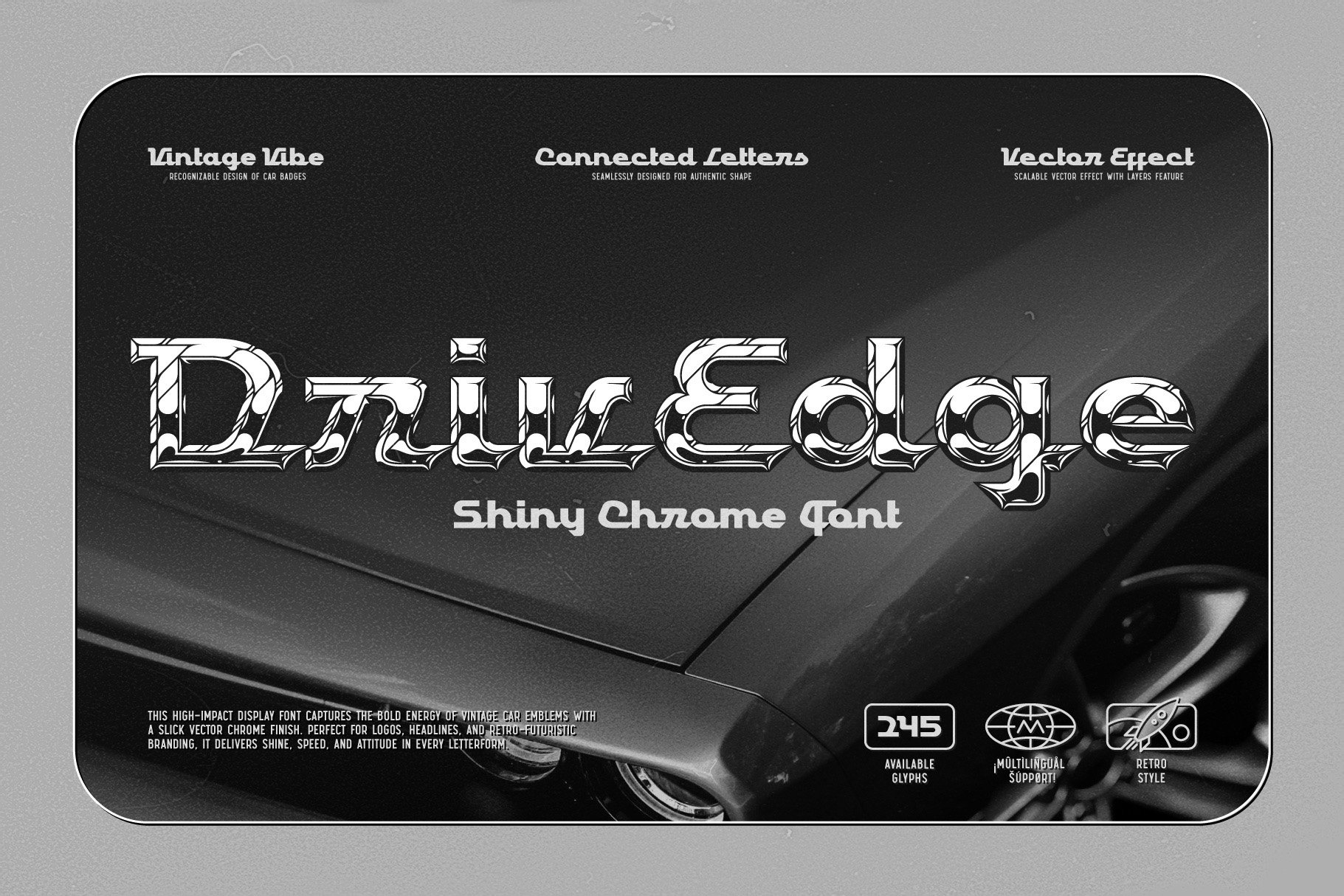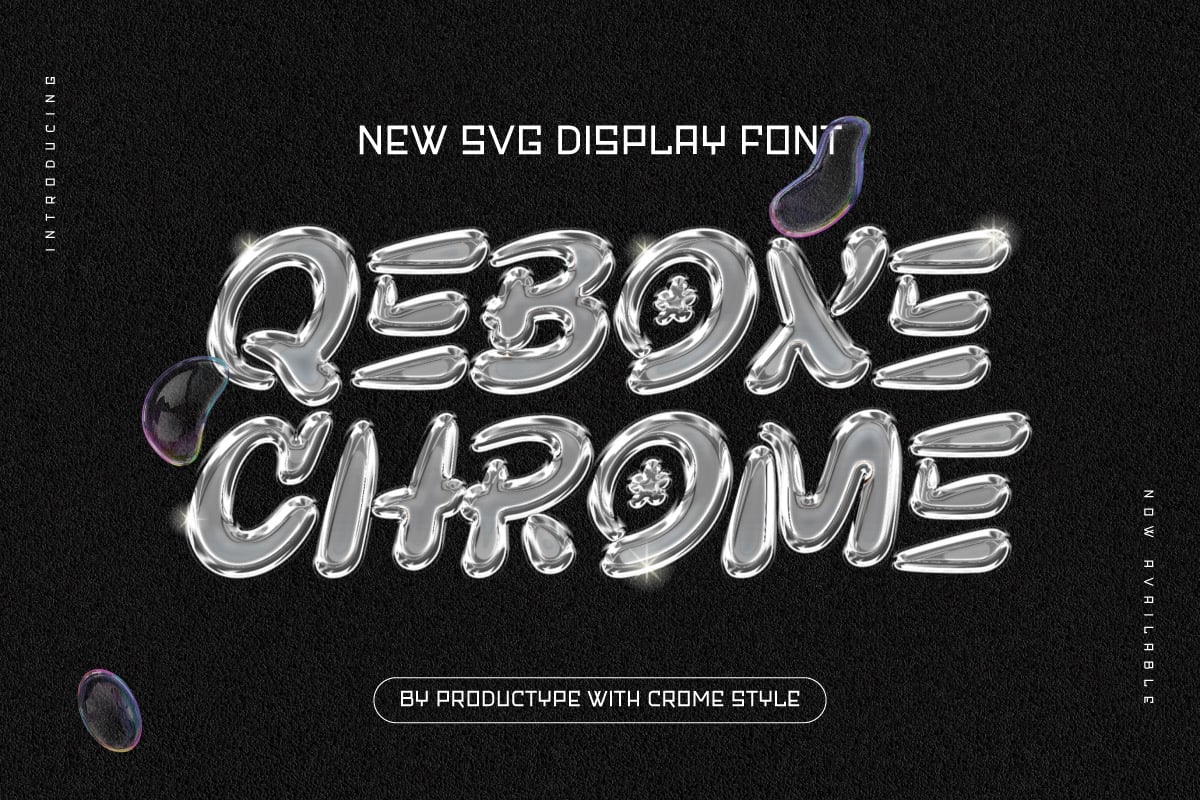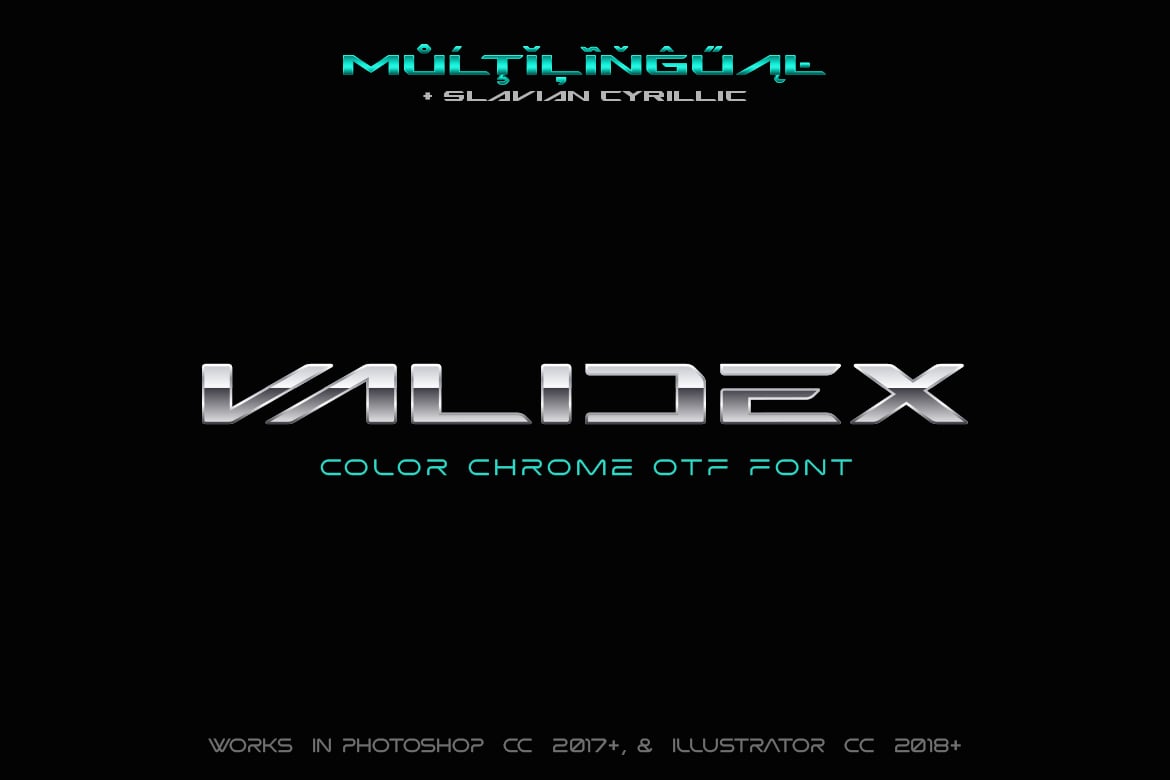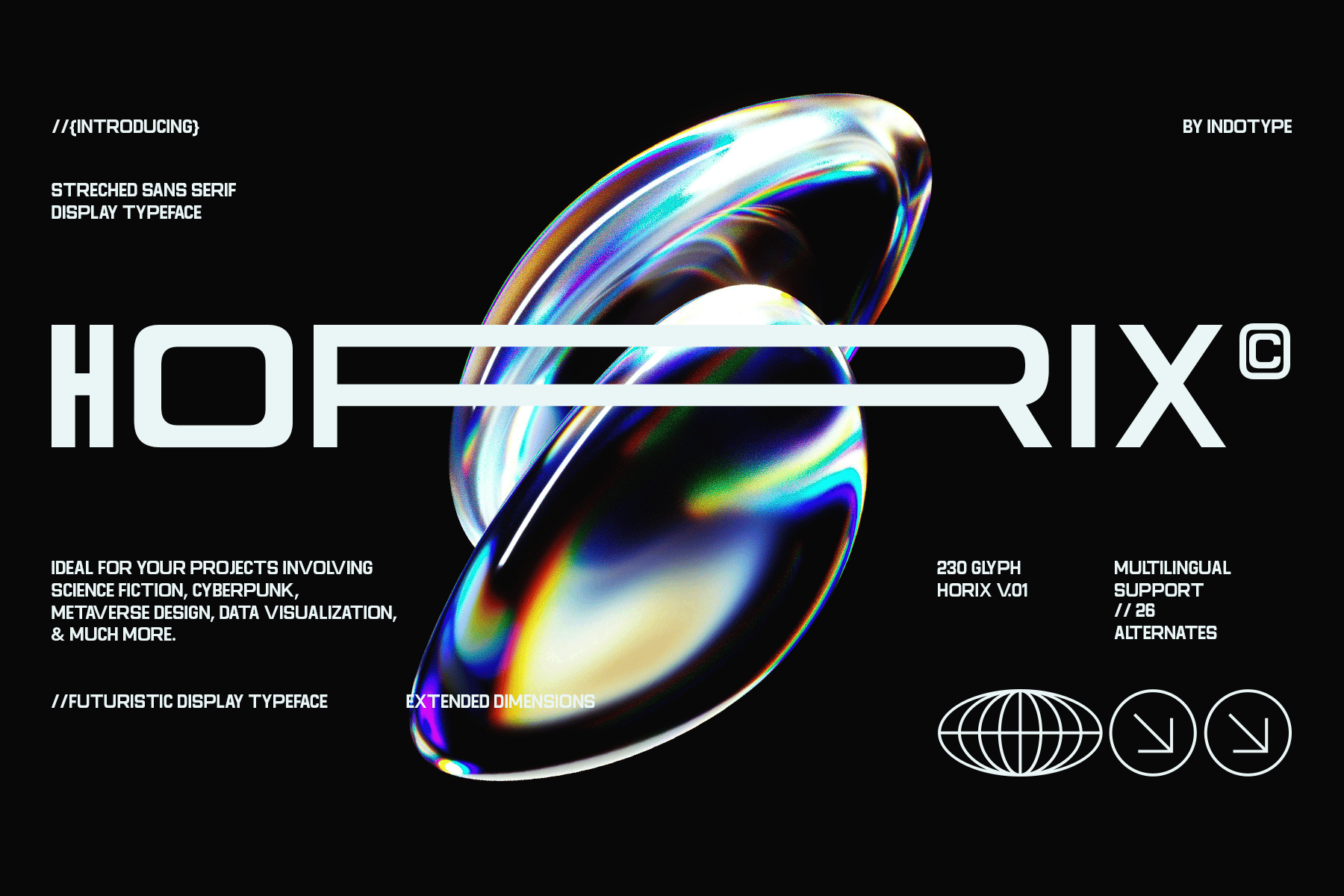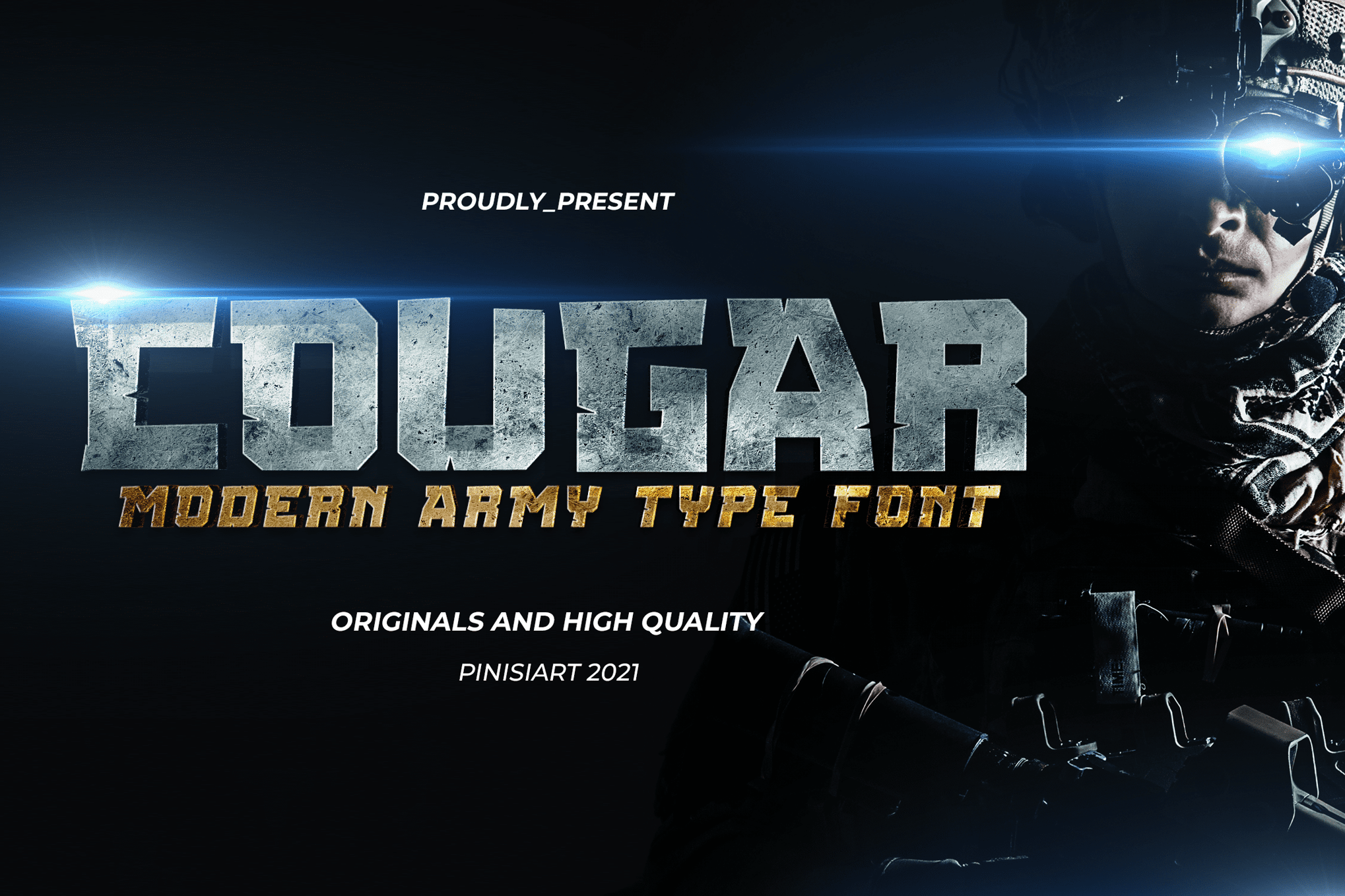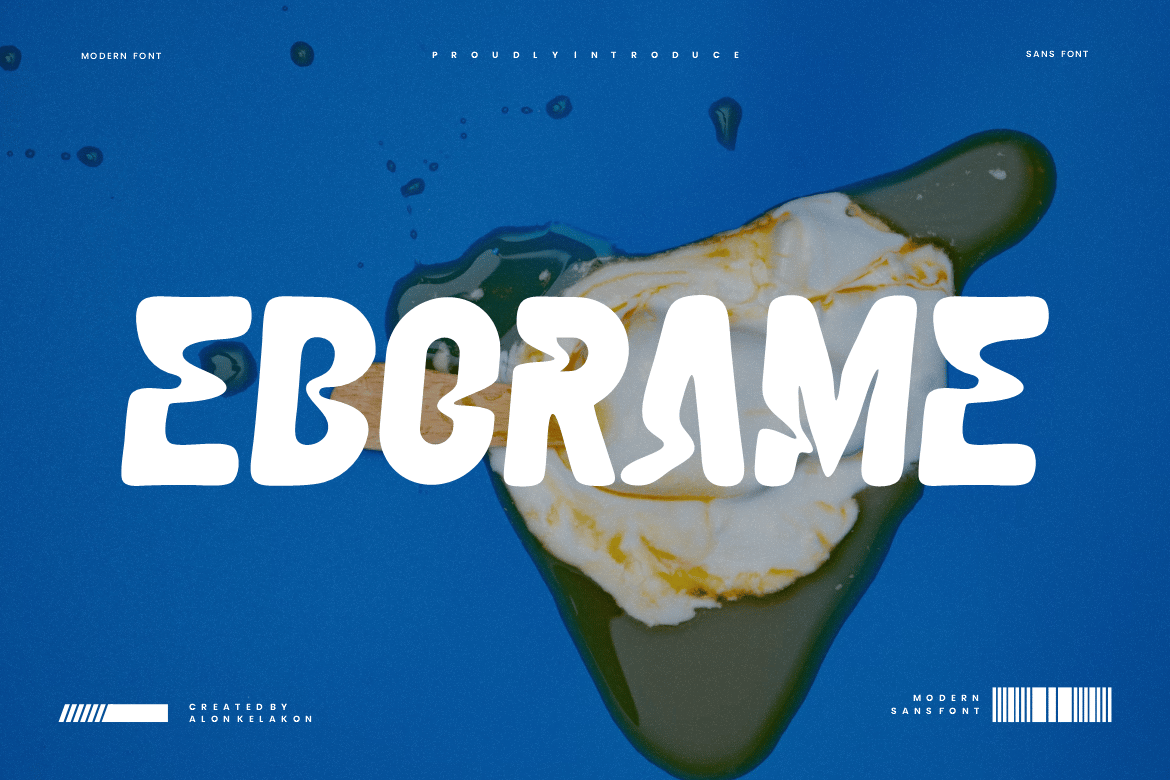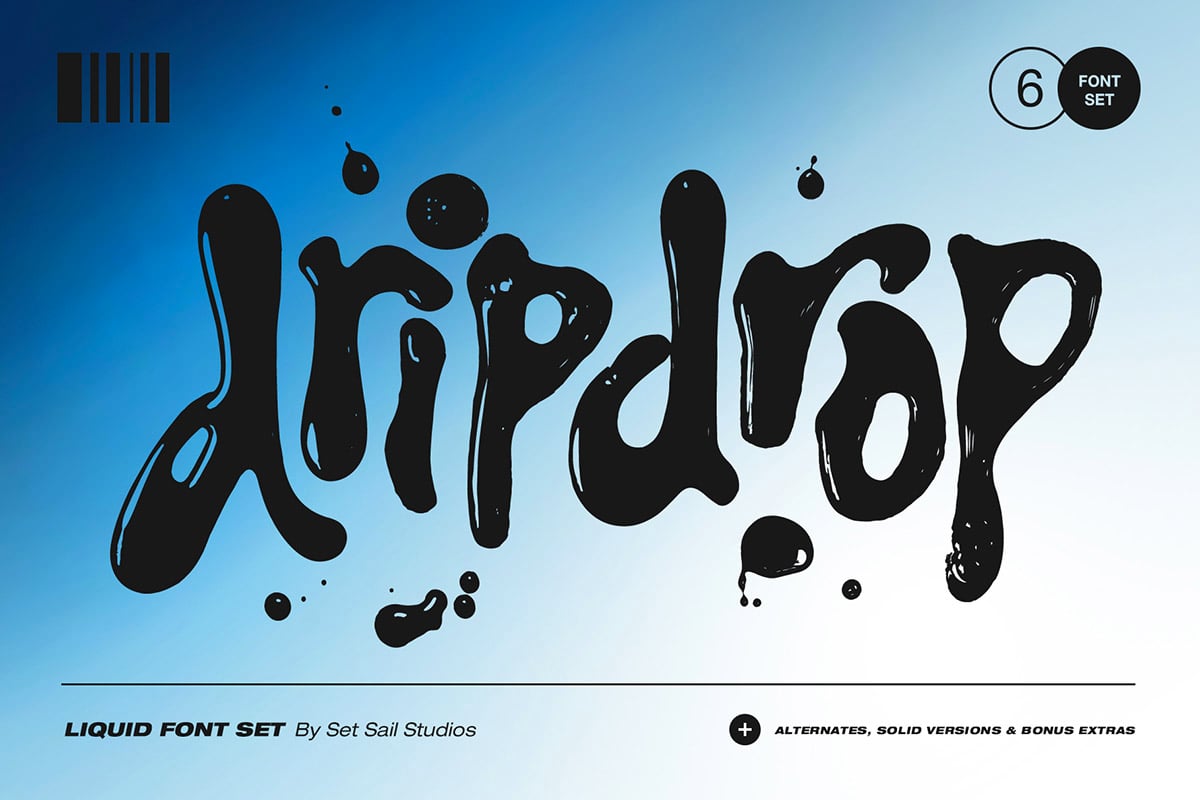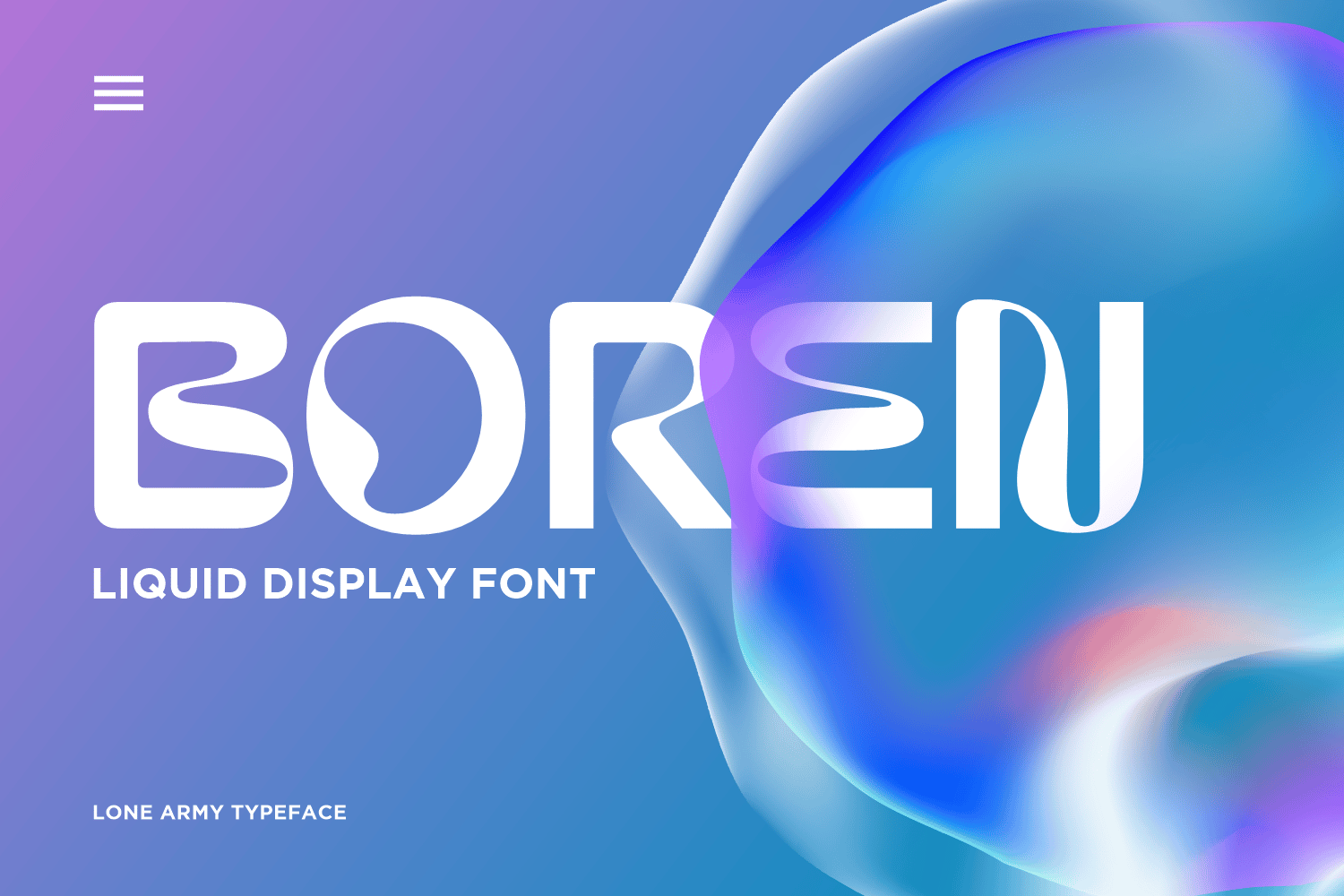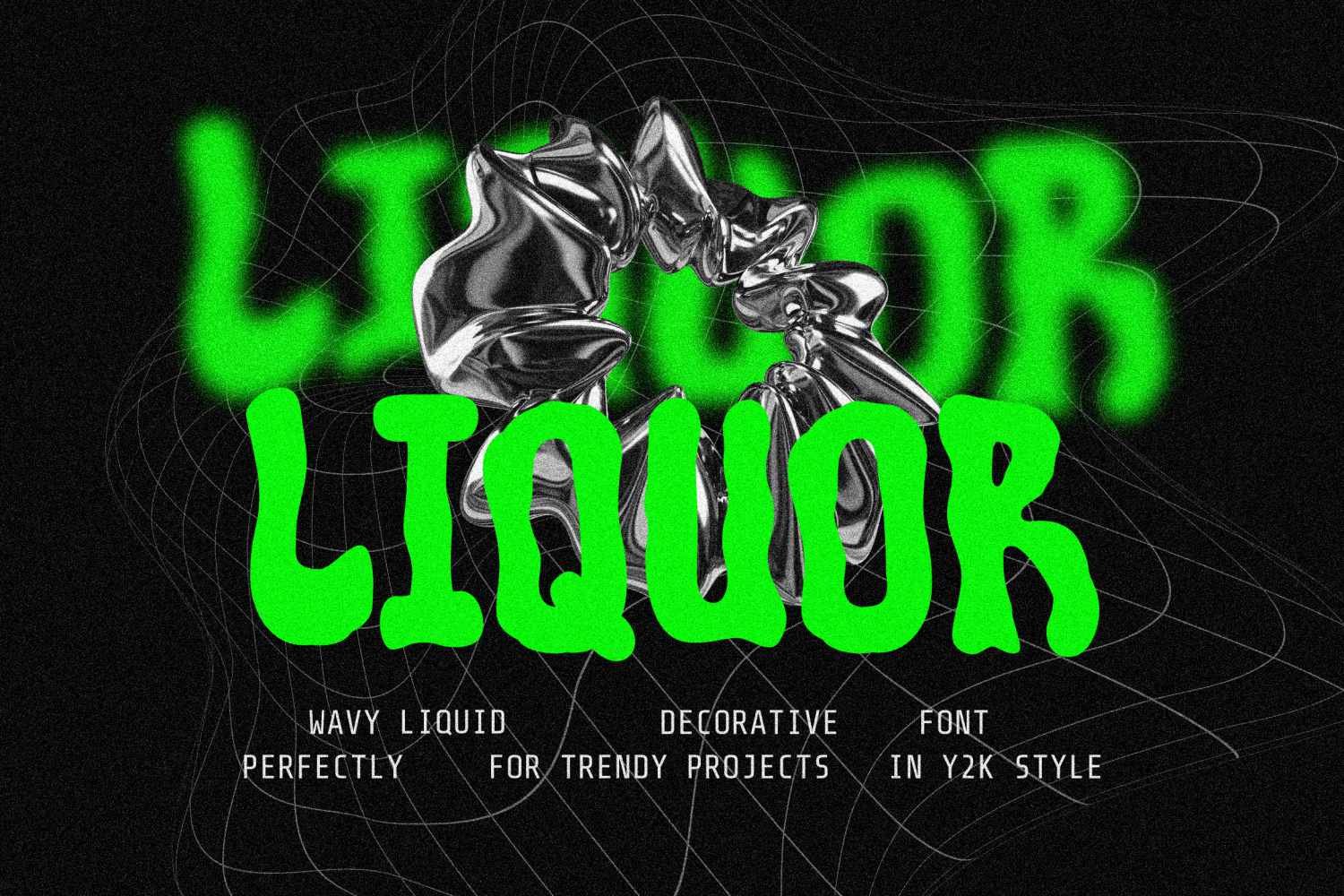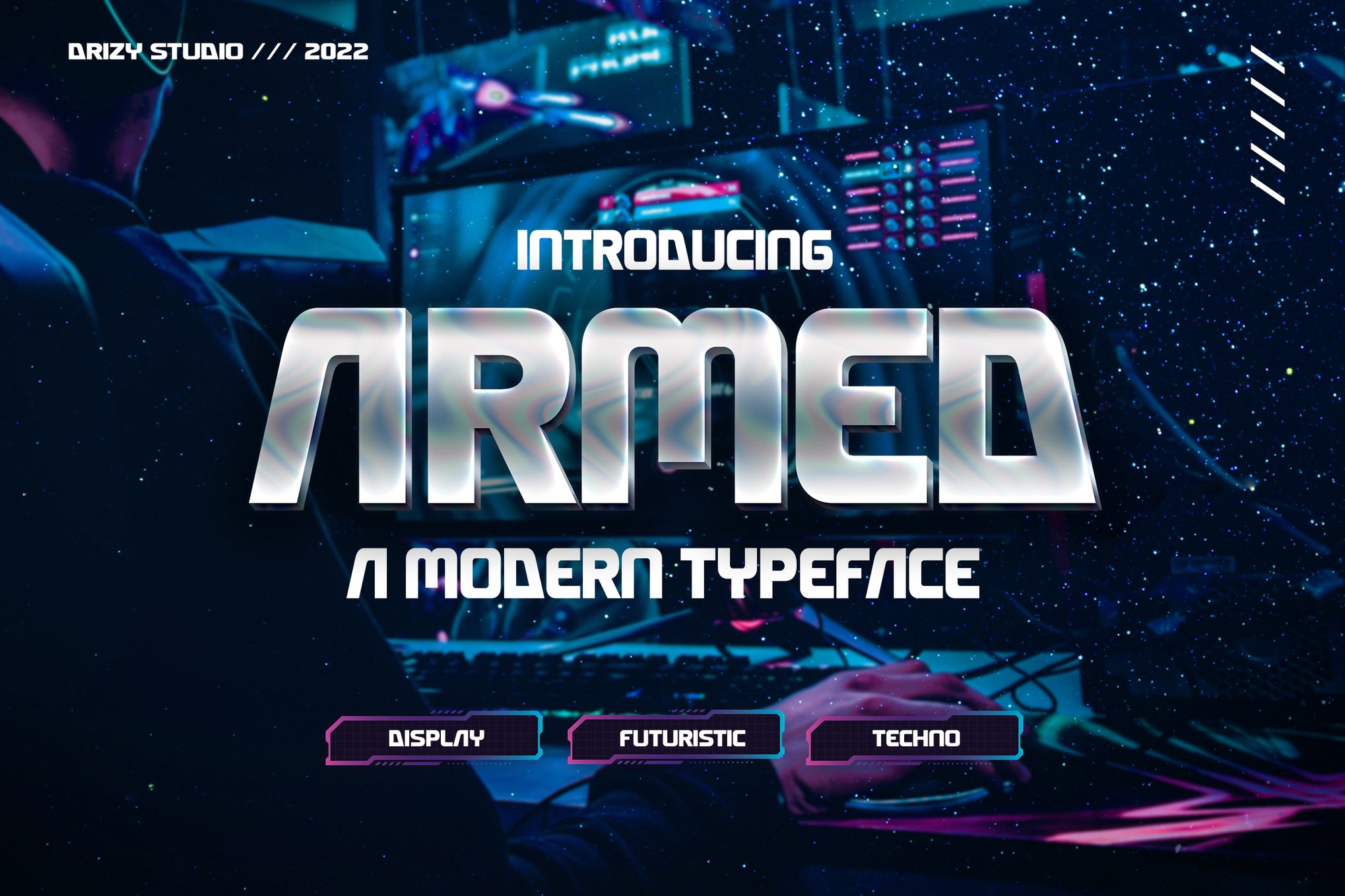
15+ Exceptional Chrome Fonts for High-Tech Visuals
Chrome lettering instantly brings to mind speed, machines, and futuristic worlds.
This collection explores chrome fonts built for high-impact visual design. Each typeface reflects light, depth, and metallic texture in ways that feel dynamic and bold.
These fonts work beautifully in movie titles, game branding, music artwork, and futuristic advertising.
They are also perfect for tech branding, gaming graphics, UI visuals, and futuristic posters as well.
DrivEdge – Shiny Chrome Font
DrivEdge offers a unique, shiny chrome-styled font reminiscent of vintage car emblems. With its slick, high-impact design, this font is optimal for catchy logos, headlines or retro-futuristic branding. Featuring three distinct fonts, including a base shape, chrome effect layer and regular font, DrivEdge also supports multiple languages.
Qebox Chrome – 3D Style SVG Font
Give your designs an innovative touch with the Qebox Chrome, a 3D SVG font featuring a futuristic chrome style. Its high-resolution, vibrant graphics are perfect for crafting eye-catching tech branding, sci-fi posters, and video game titles. Qebox Chrome offers a meticulously detailed, realistic lighting effect, and a metallic shine that stands out on the screen or page.
Validex – Color Metallic Font
Validex is a Chrome-style color font. This font allows you to create bold chrome typography without having to design them using a graphics editing app. The font comes in both OTF and colour SVG font, as well as webfont. SVG color fonts are compatible with most modern graphics editing apps.
Horix – Modern Stretched Chrome Font
Horix, a stretched chrome-style font, introduces a futuristic tone to your designs. Perfect for sci-fi, cyberpunk, and innovative projects, this typeface marries elongation with high-tech allure. Featuring 230 glyphs, 26 stylistic alternates, and multilingual support, Horix allows you to explore design boundaries across diverse platforms.
COUGAR – Chrome Military Font
COUGAR is a modern chrome-style military font that is perfect for a range of uses, including military-themed books, online games, stationary designs, school supplies, posters, movie titles, social media page covers, and more.
Eborame – Liquid Chrome Font
Eborame is a liquid chrome-style font that provides an eye-catching design. It’s versatile, fit for a diverse range of applications such as posters, logos, albums covers, film scenes and labels. The font package includes OTF, TTF and WOFF formats, ready to be integrated into your next design project.
Dripdrop – Liquid Chrome Fonts
Dripdrop is a handcrafted collection of 6 fonts, each carrying a unique personality captured through real splashes of liquid ink. Ideal for avant-garde designs and bold branding, the set provides alternative upper & lowercase letters for variety. Engage your creativity further with the extra set of drips, drizzles, and splats, or use the solid versions for a subtler effect.
Boren – Creative Liquid Font
Boren is an innovative sans-serif font with a liquid flow aesthetic. Distinguished by its dynamic design, this creative asset lends a futuristic flair to your projects, merging architectural elements with smooth, appealing lines. Boren not only imparts professionalism but its adaptability allows it to blend effortlessly with different visual styles.
Liquor – Wavy Chrome Liquid Font
This is an innovative and fun font for designers that comes with a bold, liquid-like style that stands out on any media. Ideal for catchy titles, trendy clothing graphics or vibrant backgrounds, this font comes with a variety of alternates and ligatures, and a unique grid-style letter system, creating a custom effect each time.
Armed – Modern Chrome Font
Armed is a versatile typeface suitable for any project. It offers uppercase and lowercase letters, numerals, punctuation, multilingual support, and elegant ligatures. If you’re seeking a fresh and modern chrome-style font, we recommend taking a look at Armed. It’s user-friendly, and its creators, Drizy Studio, are known for their superb support and service.
Gasterol – Industrial Steel Font
Gasterol is a chrome-style font designed to command attention. Robust and weathered, this distinctive font strongly resonates with brands that do not shy away from making bold statements. Ideal for industrial giants, military entities, or automotive powerhouses, it ensures your message is unforgettable. The package includes OTF, TTF, and WOFF file formats.
Steel Plate – Chrome Display Font
Steel Plate is a chrome font inspired by the rugged aesthetics of industrial steel construction. Each character is crafted with geometric cuts and rivet-like holes, evoking raw power and strength. This high-impact font commands attention, perfectly blending utility with creative grit, ideal for construction, sci-fi or military-themed visuals.
Moran – Futuristic Chrome Font